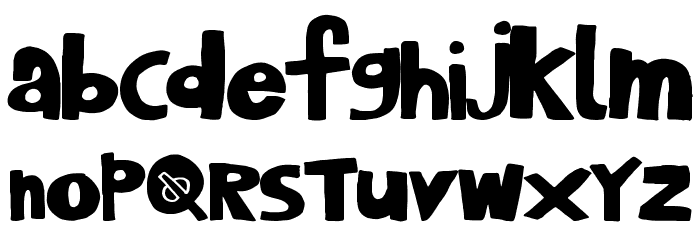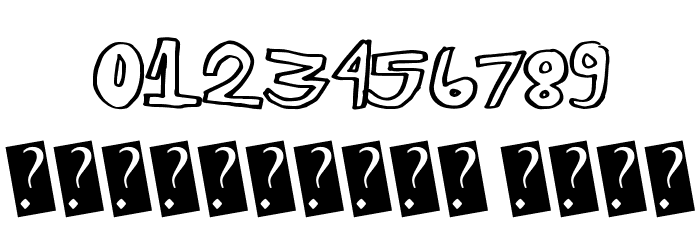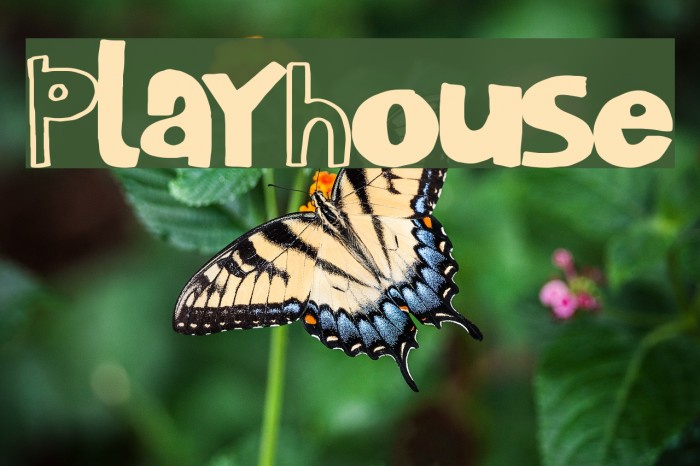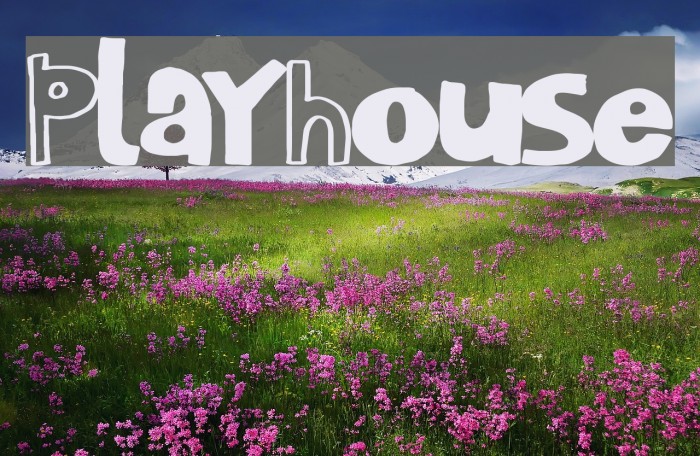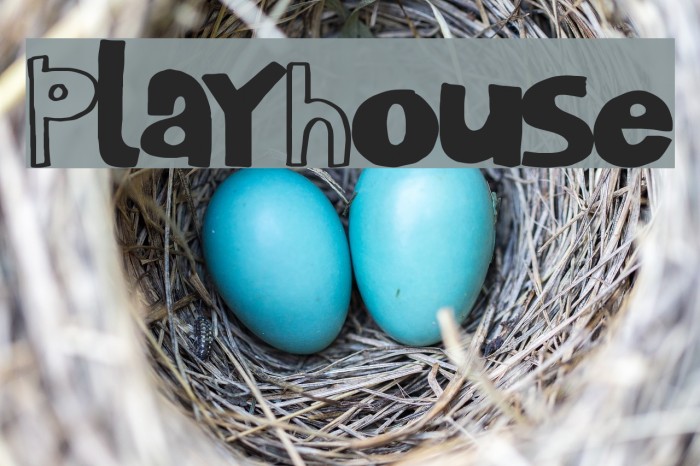
PlayHouse Font
This playful and whimsical font features a hand-drawn style with irregular, bold strokes that give it a lively and energetic appearance. The characters are slightly uneven, adding to the casual and informal feel. The uppercase and lowercase letters are distinct, with some letters featuring unique embellishments, such as the slashed zero and the quirky ampersand. The numbers maintain the same playful style, making them suitable for creative projects. The special characters are designed with a similar flair, ensuring consistency throughout the font. Overall, this font exudes a sense of fun and creativity, making it ideal for projects that aim to capture attention and convey a lighthearted message.
A playful, hand-drawn font with bold, irregular strokes and a whimsical style.
- Proposed Projects: Ideal for children's books, playful branding, party invitations, and creative posters.
- Overall Style: Playful, Whimsical